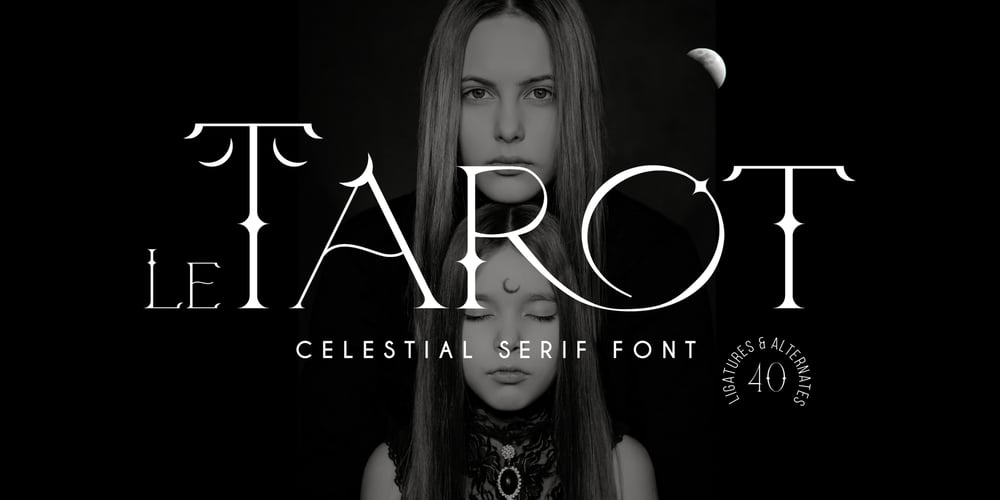
Le Tarot Font Family was designed by Viktoryia Strukouskaya, Viktor Strukouski and published by Struvictory.art. Le Tarot contains 1 styles and family package options. Le Tarot is a modern serif font with celestial motives. The font is created in classic proportions and decorated with the moon and stars. Le tarot includes stylistic alternates and ligatures. The font is suitable for the design on the theme of astrology, mysticism, spirituality, witchcraft, magic, esotericism.Le Tarot has extensive language support, it includes English, French, German, Italian, Spanish, Portuguese, Danish, Norwegian, Swedish, Finnish, Estonian, Turkish.Le Tarot includes stylistic alternates for symbols: A, a, D, d, G, g, J, j, M, m, O, o, T, t, U, u, W, w. There are also ligatures: Ka, La, Ma, OO, Ra, aa, am, ka, ko, la, lo, ma, mm, mo, oo, ra, rm, ro, rr, tt, xa, za.